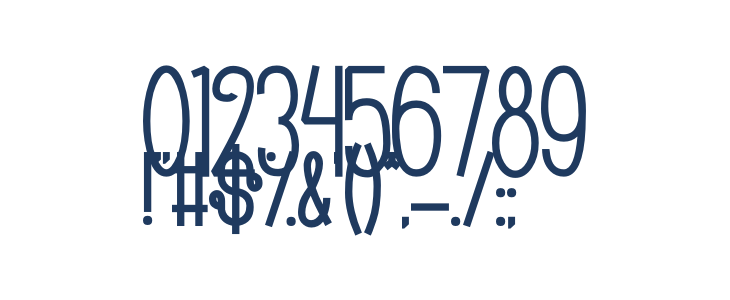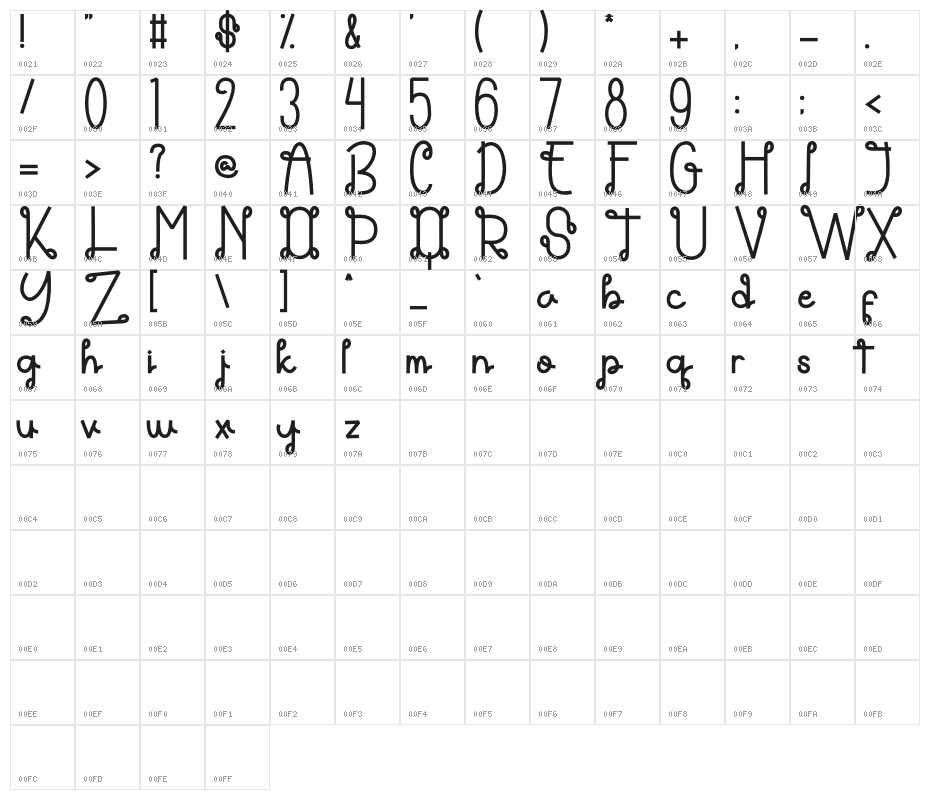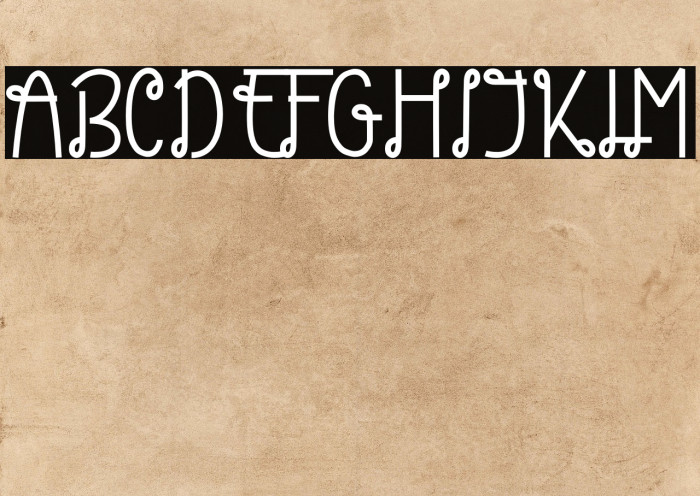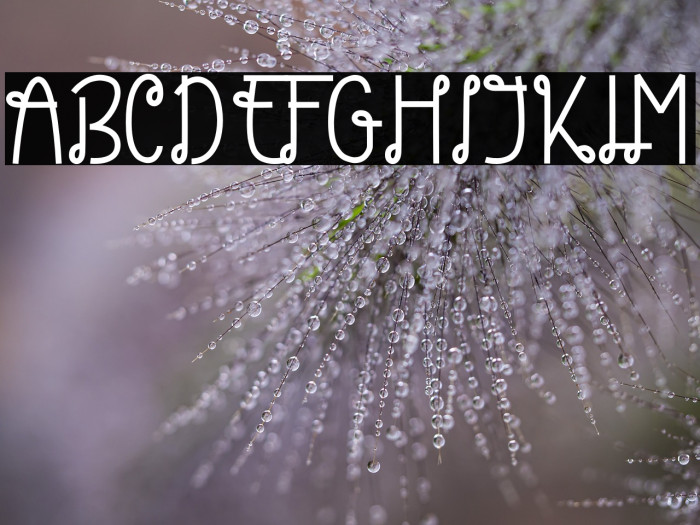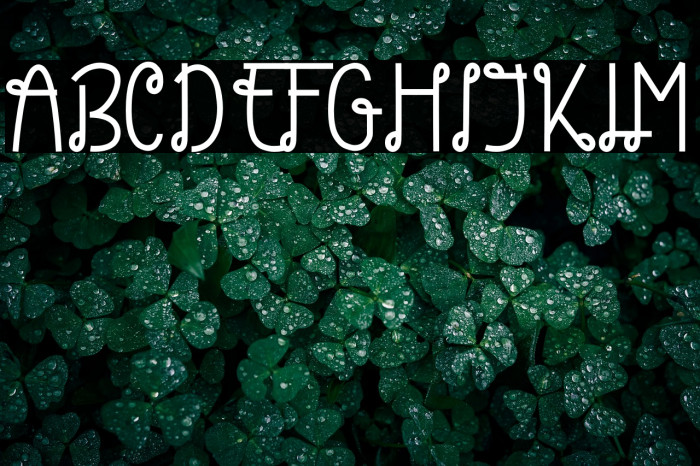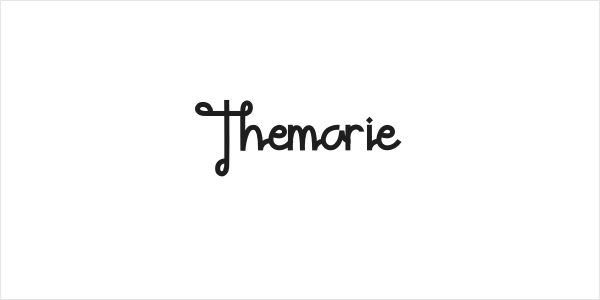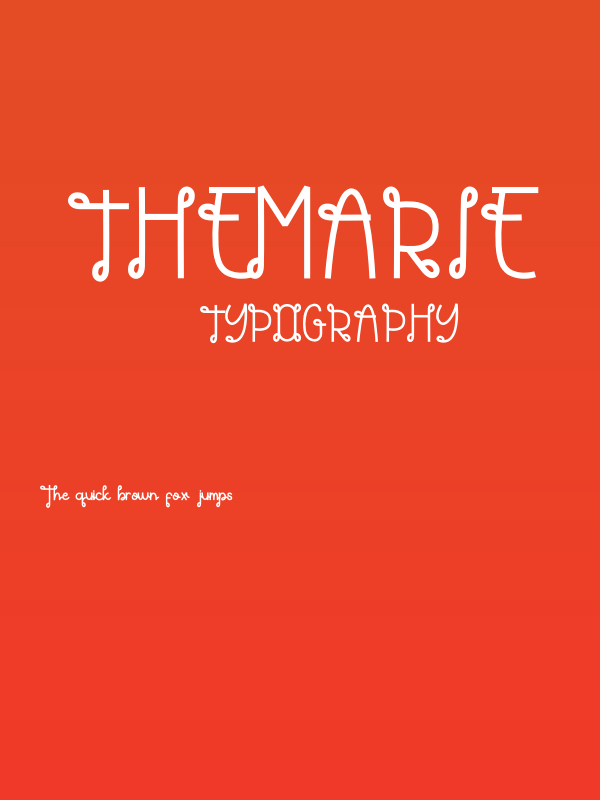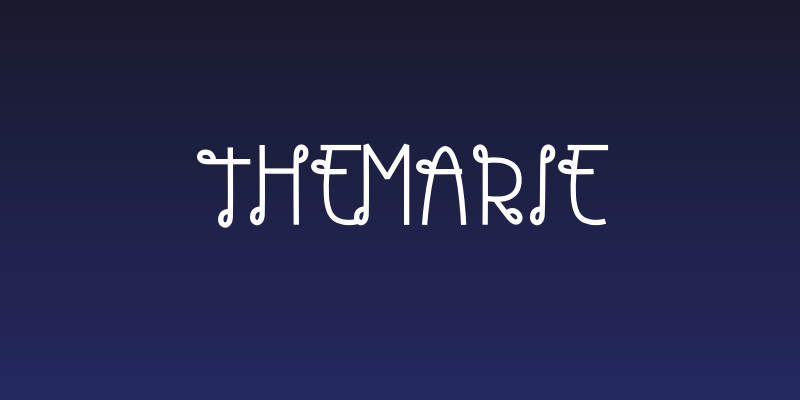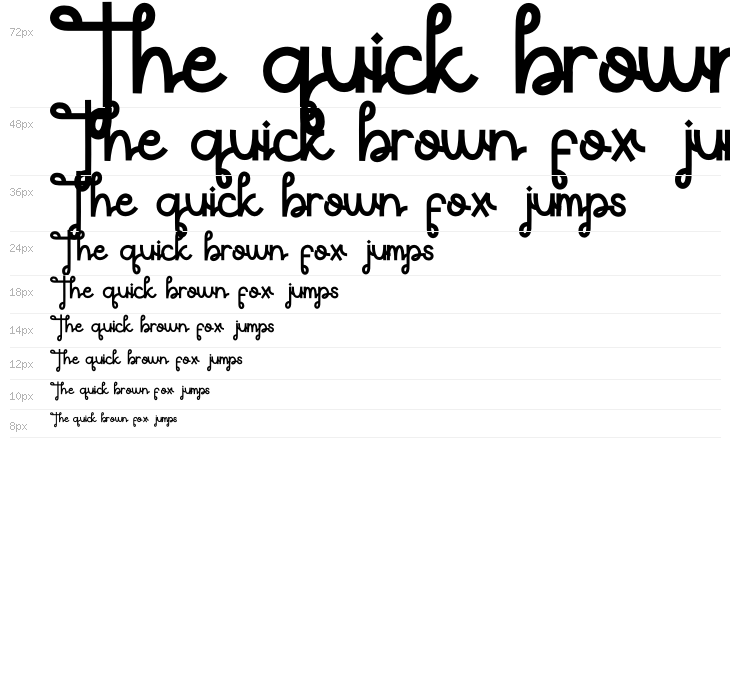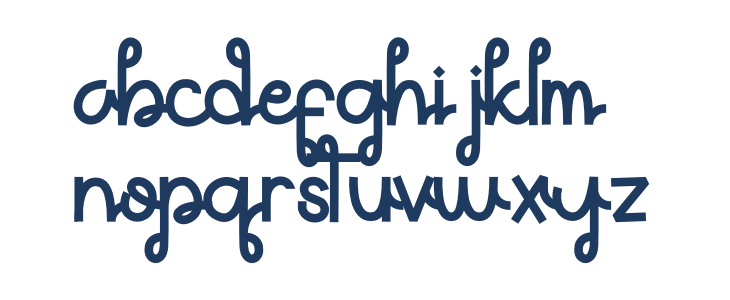
Themarie Font
Themarie Description
This font features a playful and whimsical design with unique looped elements on each character, giving it a distinctive and artistic flair. The uppercase letters are bold and structured, with loops that add a touch of elegance and creativity. The lowercase letters maintain a consistent style, with smooth curves and loops that enhance the font's playful nature. The numerals are clear and easy to read, with a slight artistic twist that aligns with the overall theme. Special characters are designed with the same attention to detail, ensuring a cohesive look across all elements. This font is perfect for projects that require a fun and engaging aesthetic, making it ideal for creative branding, children's books, or playful invitations.
| Overall Style | Playful, Artistic |
| Proposed Projects | Creative branding, children's books, playful invitations, artistic posters. |